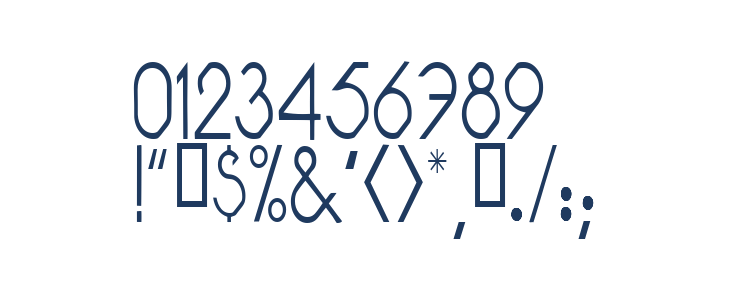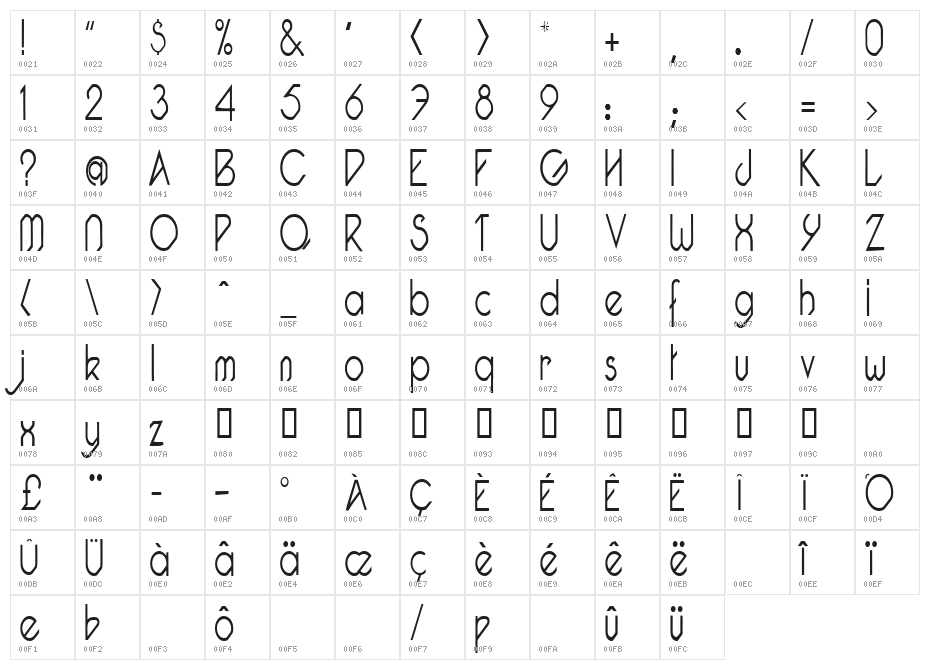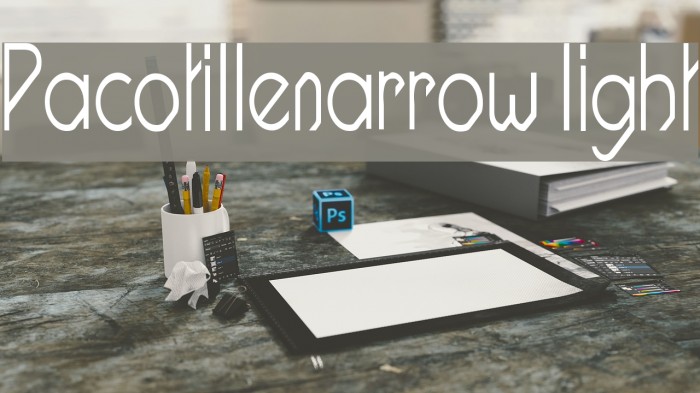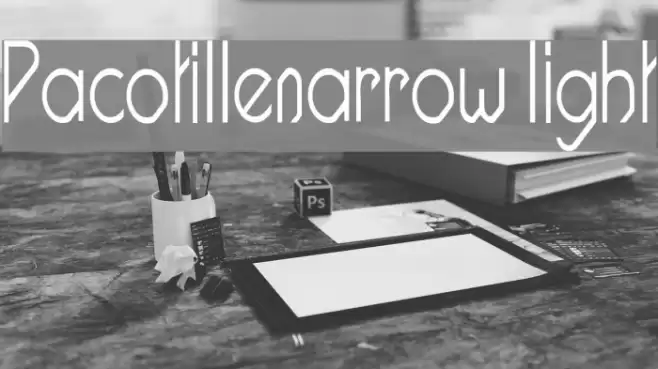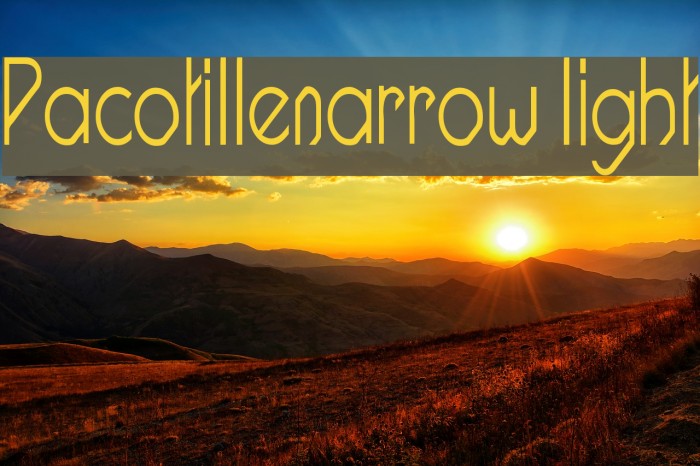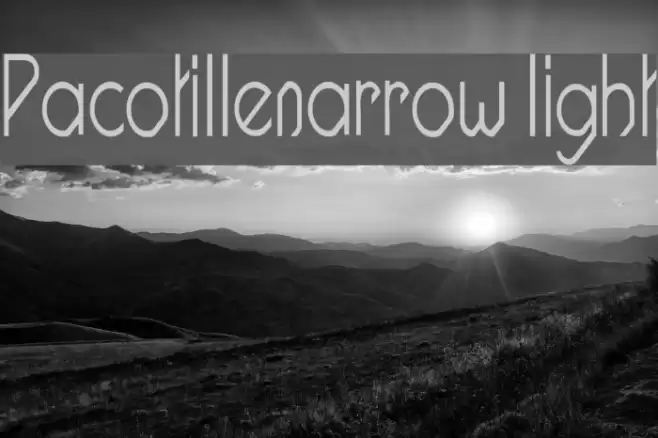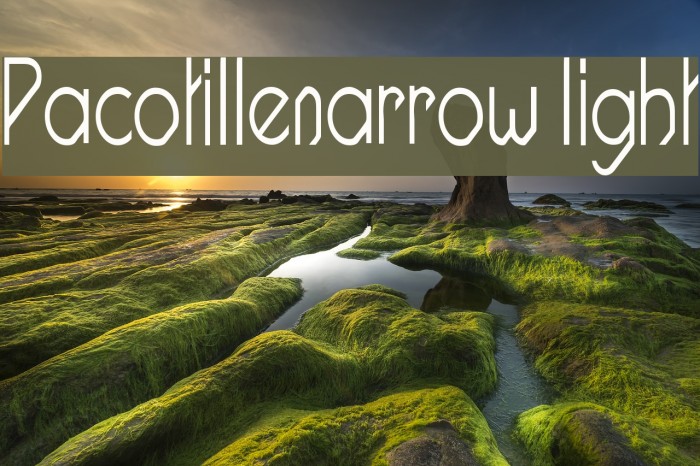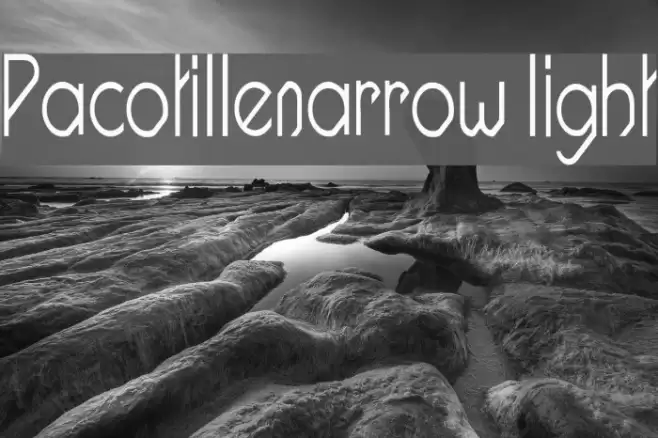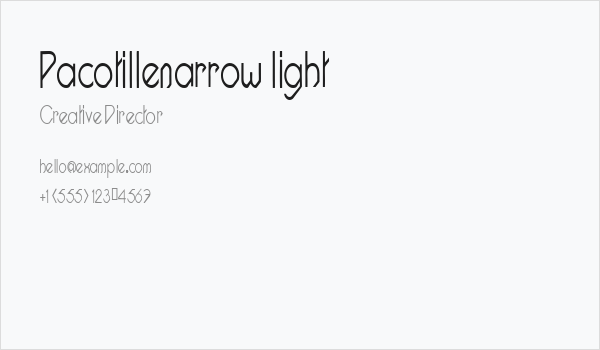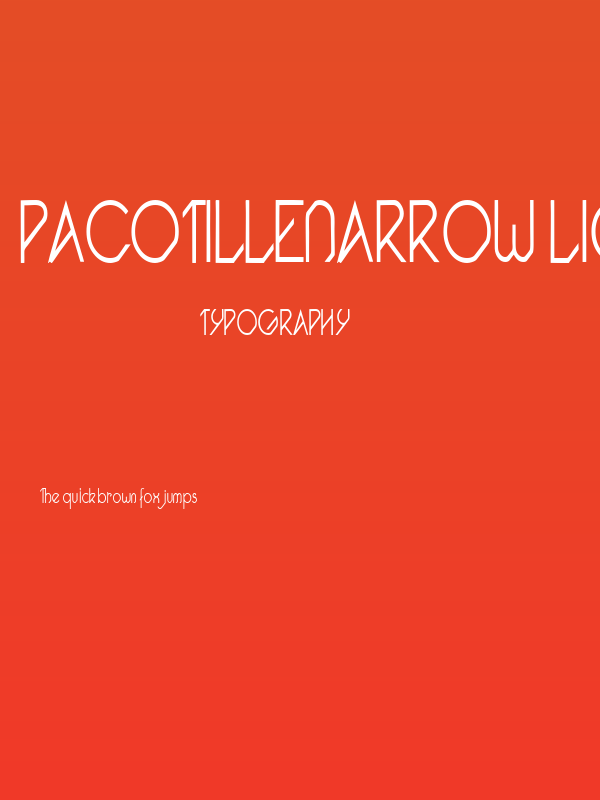
Pacotillenarrow light Font
Pacotillenarrow light Description
This font features a unique and modern design with a geometric and angular style. The characters are narrow and elongated, giving a sleek and sophisticated appearance. The uppercase letters have sharp angles and clean lines, while the lowercase letters maintain a consistent style with a slightly softer approach. The numbers are distinct and match the overall aesthetic, providing a cohesive look. Special characters are creatively designed, adding to the font's versatility. This font is ideal for projects that require a contemporary and stylish touch.
| Proposed Projects | Ideal for branding, fashion magazines, modern art posters, and innovative product packaging. |